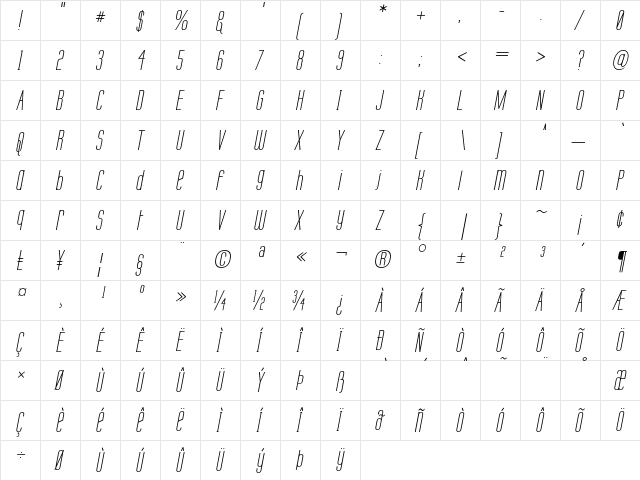
Labtop Unicase Italic
Design Context for Labtop Unicase Typeface
Labtop Unicase takes a measured approach to typography — its balanced proportions and neutral character make it a reliable workhorse for both digital and print work. The slanted form adds forward momentum and visual energy.
Pro Tip: Try Labtop Unicase for annotation and caption copy alongside an upright companion — the contrast in angle creates a dynamic but ordered typographic system.